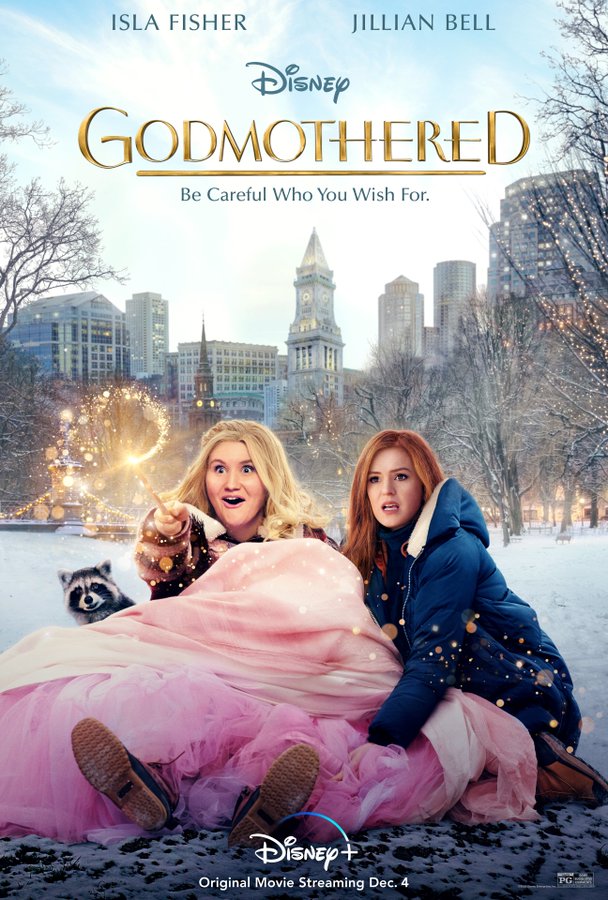
Godmothered Font
ComedyGodmothered is a fantasy comedy film about a young and inexperienced fairy godmother who sets out on a mission to save her fairy godmothering school by proving that people still believe in fairy tales.
The "Godmothered" title on the poster is written in a font resembling ITC Vintage Regular, designed by Holly Goldsmith. The typeface is based on a 1915 magazine ad and conveys a sense of elegance and simplicity through its classic and dignified design.